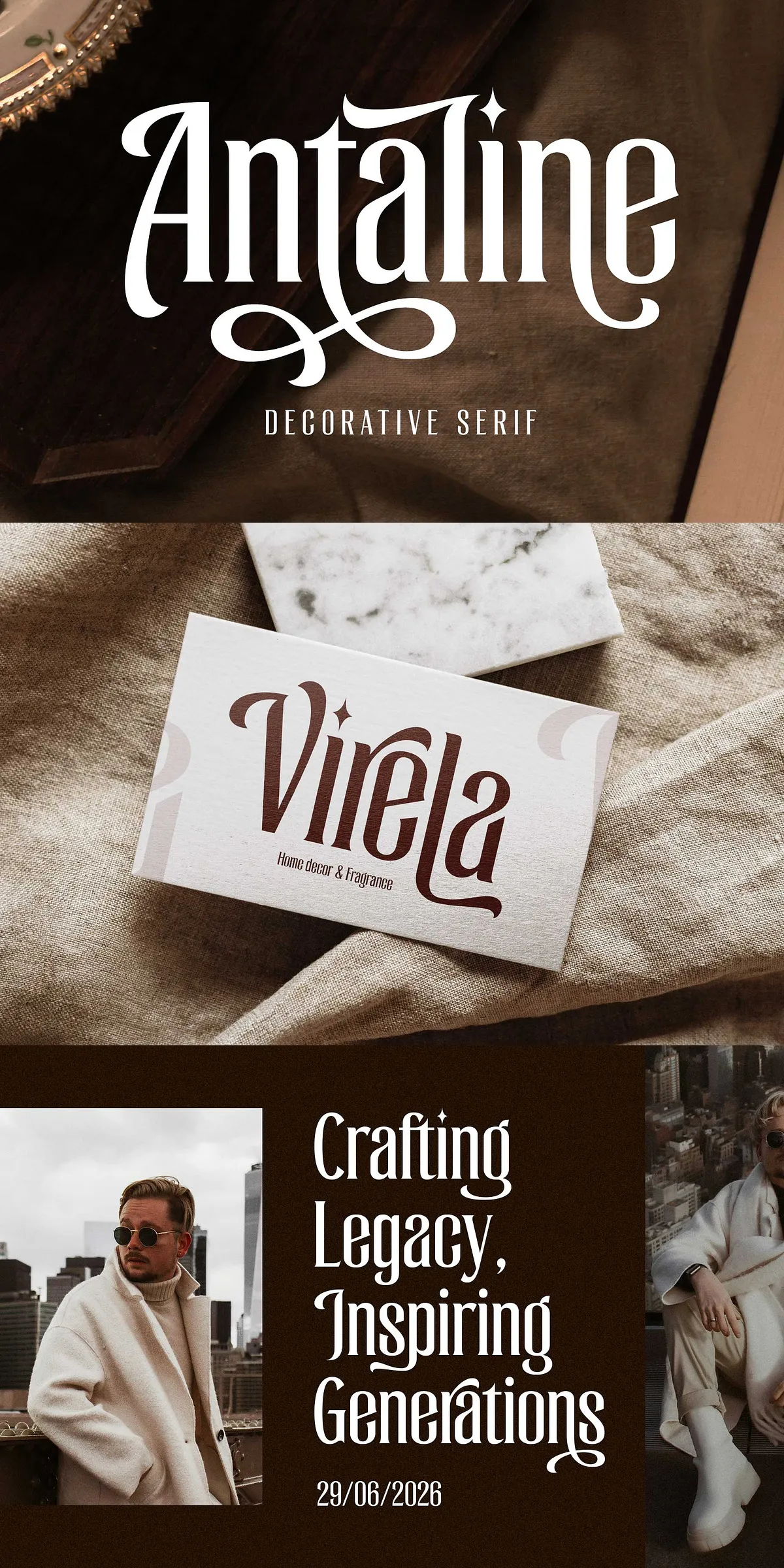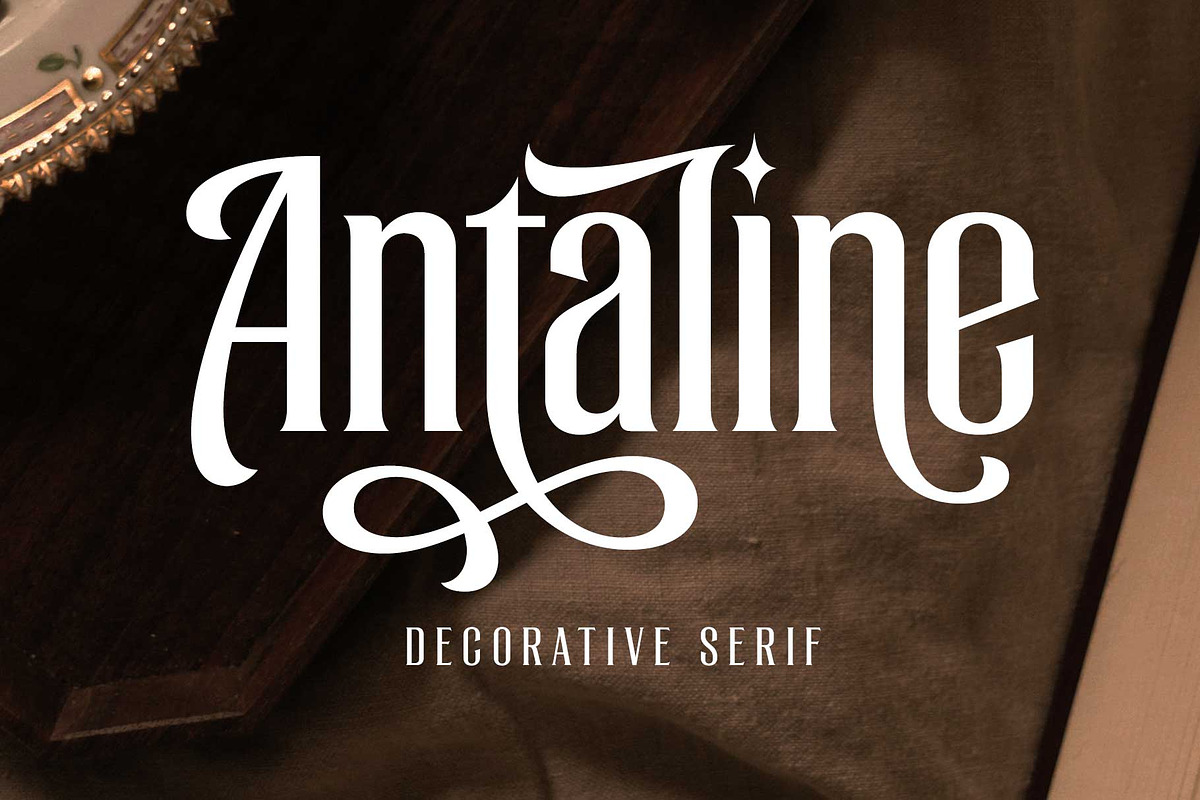
Antaline – Display Font
Antaline delivers a refined display voice that actively commands attention. Designed with dramatic high-contrast strokes and graceful proportions, this serif transforms ordinary headlines into confident brand statements. Decorative terminals, flowing swashes, and carefully tuned curves work together to create a typeface that reads as both artistic and professional. Use Antaline to form wordmarks, editorial mastheads, and hero headlines that communicate premium quality at first glance.
Extensive glyph set and OpenType features included
Antaline ships with over 500 glyphs, giving designers the creative freedom to produce unique compositions without resorting to manual manipulation. The family includes stylistic alternates and ten stylistic sets, robust ligature options, and flowing swashes that expand expression for logotypes and display text. OpenType features let you switch sets, enable contextual alternates, and access discretionary ligatures, enabling rapid iteration while maintaining consistent typographic polish.
Practical applications across luxury, fashion, and editorial work
Apply Antaline where visual distinction matters. It elevates fashion lookbooks, beauty branding, high-end café menus, premium packaging, wedding invitations, and magazine editorial spreads. Because the letterforms balance ornament with legibility, Antaline excels at large-scale display use and decorative logotypes while still reading clearly in short paragraphs and captions. Designers will find it especially effective when paired with a neutral sans for body copy or a fine-line sans for modern identity systems.
Why Antaline works well for premium product experiences
Antaline’s high-contrast strokes convey elegance and handcrafted quality, cues that boost perceived product value. Decorative alternates and swashes add personality that helps brands stand out on packaging and promotional materials. Multilingual support and comprehensive punctuation ensure international campaigns maintain the same premium voice across markets. The font’s expressive features let creatives present cohesive, memorable brand narratives across both print and digital touchpoints.
• Uppercase and lowercase alphabets with coherent proportions
• Numerals, punctuation, symbols, and currency support
• 500+ glyphs including alternates, swashes, and discretionary ligatures
• Stylistic sets (01–10) and contextual alternates for expressive control
• Robust multilingual support for extended Latin languages
Usage recommendations and pairing strategies for designers
For maximum impact, use Antaline at display sizes for covers, posters, and hero sections. Activate stylistic sets or swashes selectively to create unique logotypes and badges. Pair with a restrained sans-serif for long-form text to maintain hierarchy and legibility. When working on packaging, slightly tighten tracking in compact wordmarks; increase tracking for very large display settings to emphasize the typeface’s elegant terminals. Test on both coated and uncoated stocks to ensure stroke contrast behaves as intended in print.